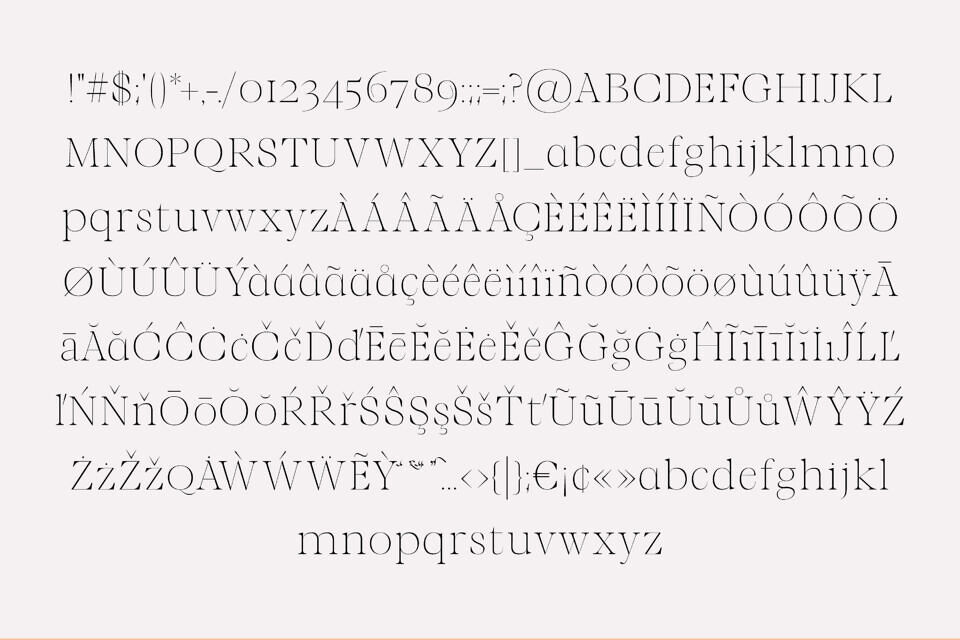
Luxe Font
Luxe is an elegant and chic serif typeface, designed with delicate, refined strokes for a sophisticated look. Its thin, graceful glyphs make it ideal for fashion branding, magazine covers, packaging, social media graphics, and other creative projects.
Luxe adds a touch of luxury and refinement, enhancing the visual appeal of your designs. Perfect for designers seeking a timeless, stylish font, it brings elegance and modern sophistication to every project, turning ordinary layouts into polished, eye-catching creations.
Designed by: Minimalist Art Studio